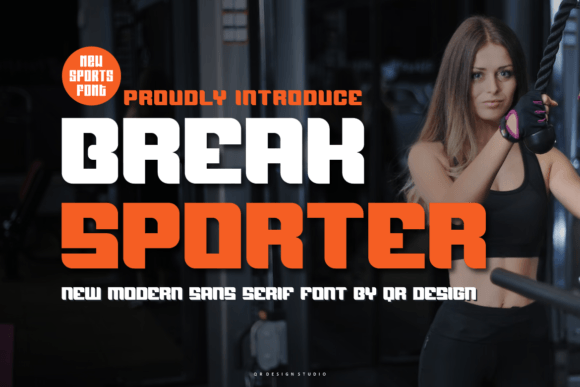
Meet Break Sporter, the dynamic sans serif font that will catapult your web apps to the forefront of user engagement! This cutting-edge typeface exudes a captivating aura, effortlessly captivating the attention of any audience.
Break Sporter's meticulously crafted characters dance across the screen, exuding a sense of energy and excitement that will leave a lasting impression on your users. Its bold, confident strokes command attention, while its clean lines and elegant curves create a harmonious visual experience that is both modern and timeless.
Whether you're building a sleek landing page, an interactive web app, or a captivating social media campaign, Break Sporter possesses the versatility to seamlessly adapt to your vision. It's the perfect font for conveying important messages, grabbing attention for call-to-actions, and creating a lasting brand identity.
But what truly sets Break Sporter apart is its unwavering commitment to clarity and readability. Each character is meticulously spaced and proportioned, ensuring effortless comprehension even at small sizes. This makes Break Sporter the ideal choice for websites, apps, and other digital platforms where readability is paramount.
With Break Sporter as your weapon of choice, you can create unparalleled user experiences that captivate, inform, and inspire. Don't settle for ordinary fonts that blend into the background—embrace the power of Break Sporter and watch your web apps soar to new heights of success!